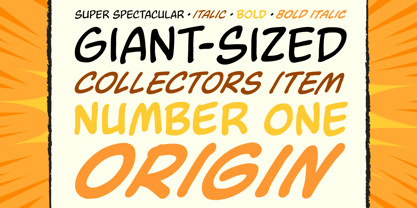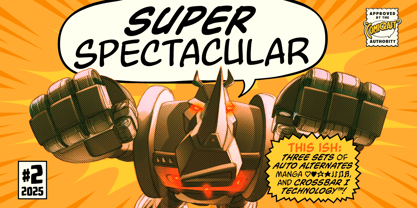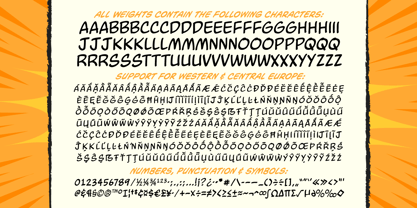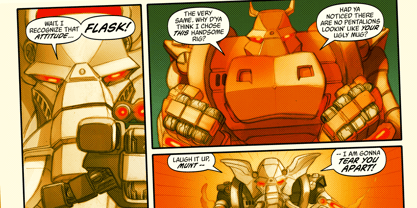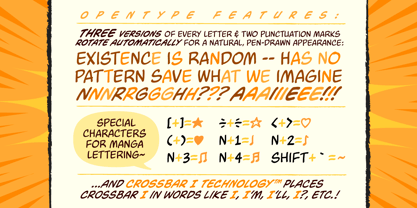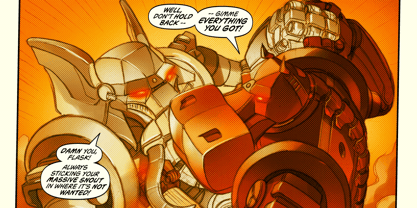
Super Spectacular
by Comicraft
The Super Spectacular Font Family was designed by John Roshell and published by Comicraft. Super Spectacular contains 4 styles and family package options. More about this family
THIS ONE’S GOT IT ALL! It’s a 100 PAGE GIANT-SIZE SUPER SPECTACULAR! A super slick word balloon font made for every PULSE POUNDING PLOT POINT in your POWERHOUSE PUNCH PAGE-TURNER!
This font doesn’t hold back, it’s gonna give ya everything it’s got, including Manga motifs, three (count ’em!) sets of auto alternates, and fan favorite Crossbar I Technology™!
Suit up, get your capes on and prepare for your next comic’s crusade!